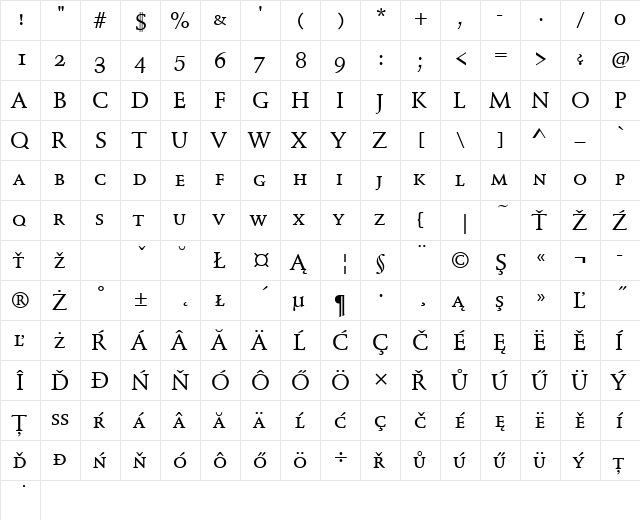
SchneidlerMedSCTEEMed Regular Font Preview
SchneidlerMedSCTEEMed Regular
SchneidlerMedSCTEEMed Regular Font Details
Design Context for SchneidlerMedSCTEEMed Typeface
SchneidlerMedSCTEEMed takes a measured approach to typography — its balanced proportions and neutral character make it a reliable workhorse for both digital and print work.